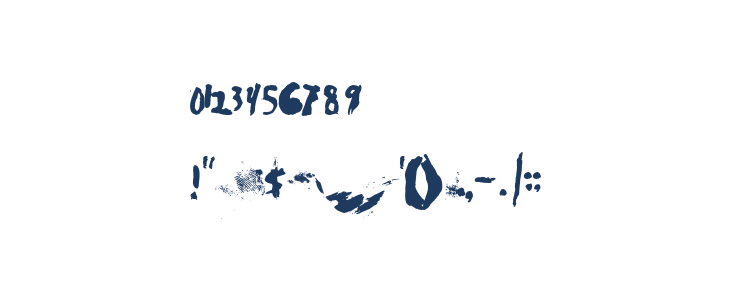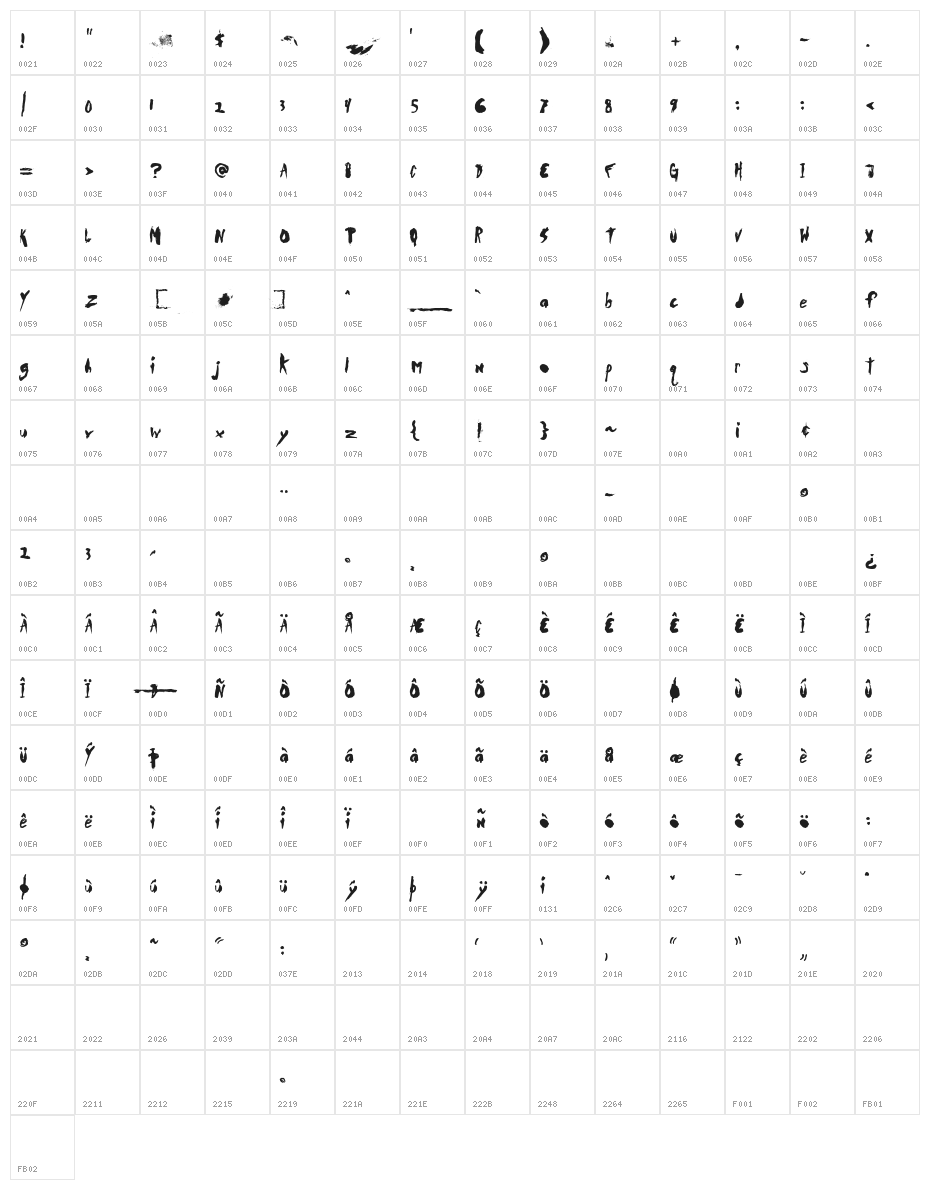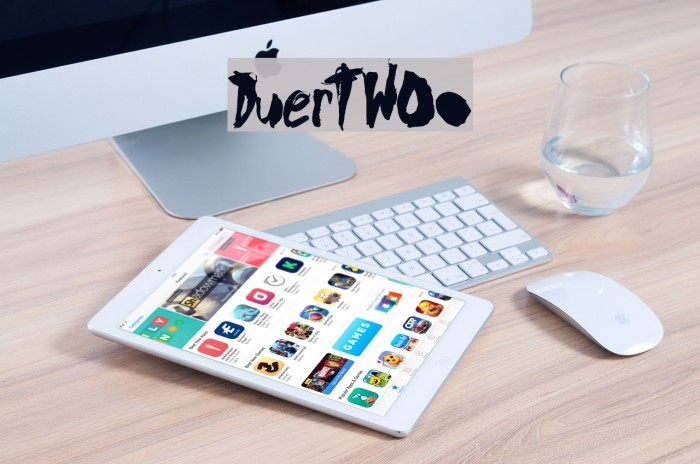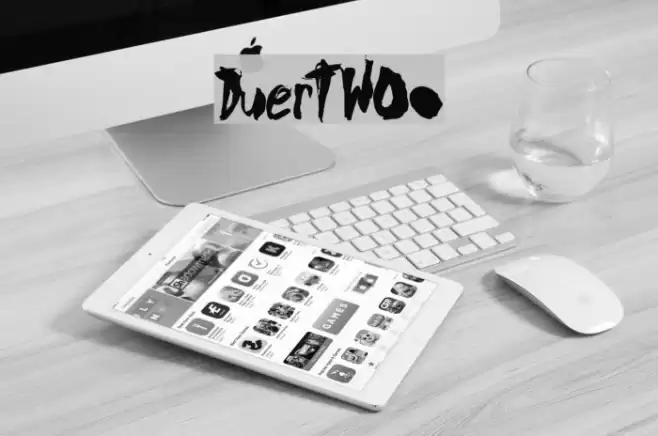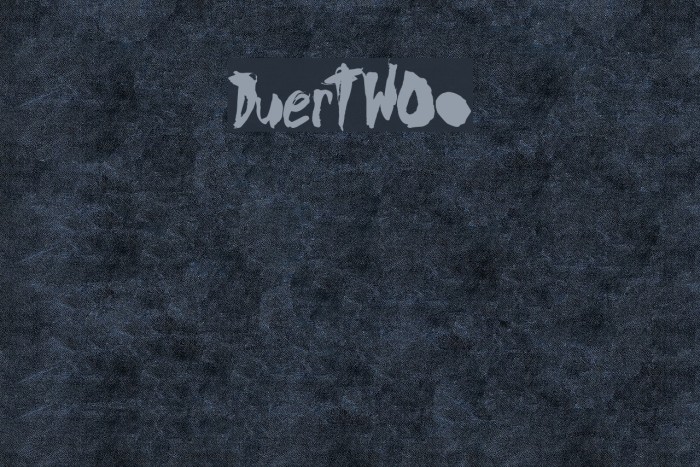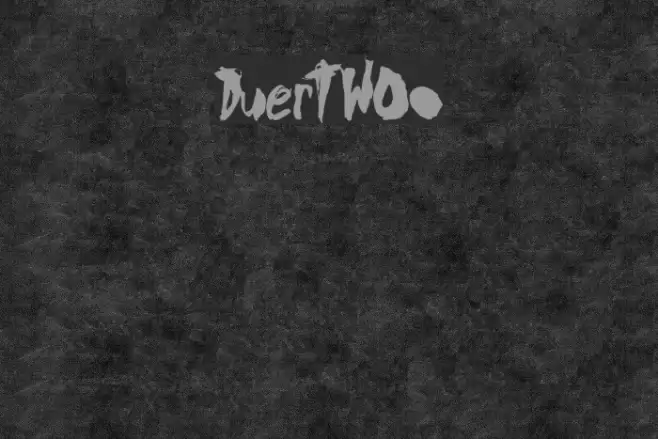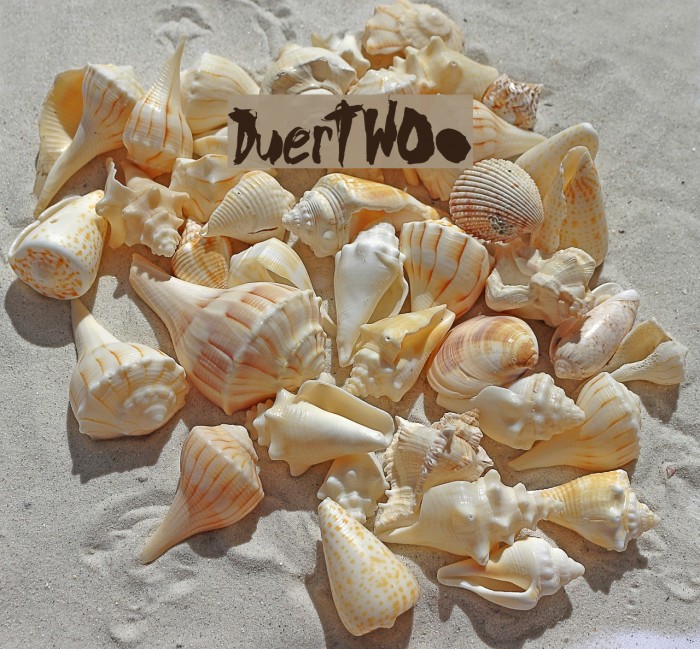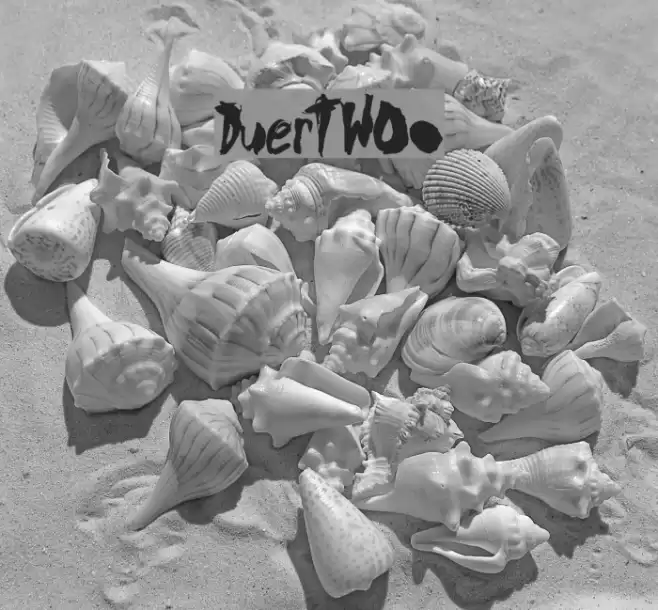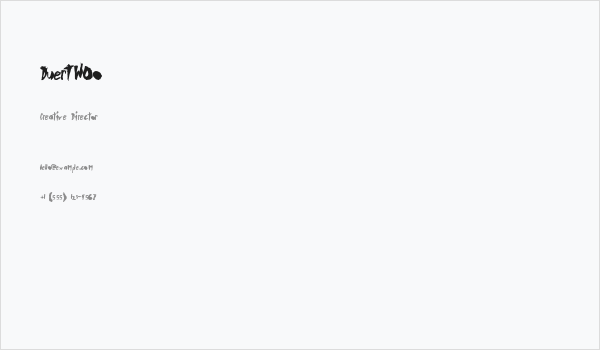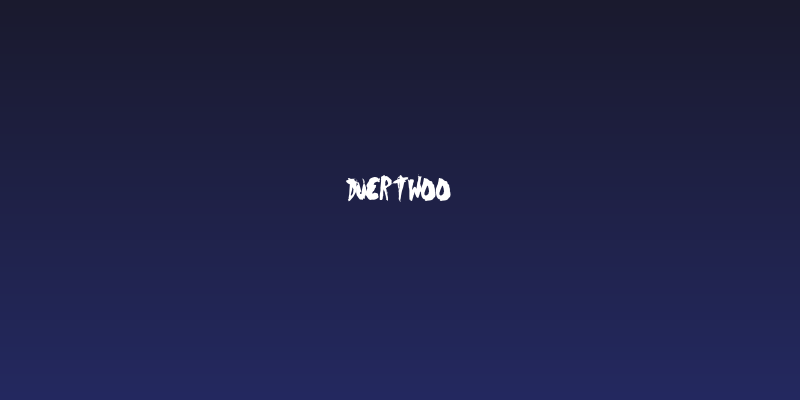
DuerTWOo Font
DuerTWOo Description
This font exhibits a bold, expressive style with a hand-painted appearance, characterized by irregular, jagged edges and a dynamic flow. The uppercase and lowercase letters maintain a consistent artistic flair, with varying stroke thicknesses that create a sense of movement and energy. The numerals and special characters follow the same aesthetic, contributing to a cohesive and visually striking typeface. Its unique brush-like texture gives it a raw, organic feel, making it stand out in any design context.
| Proposed Projects | Ideal for artistic projects, album covers, posters, and branding that require a bold, creative touch. |